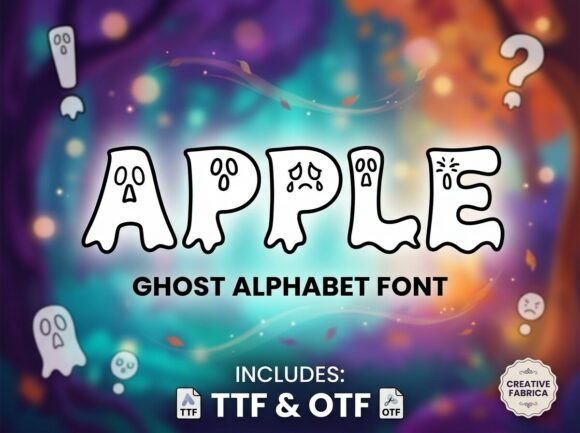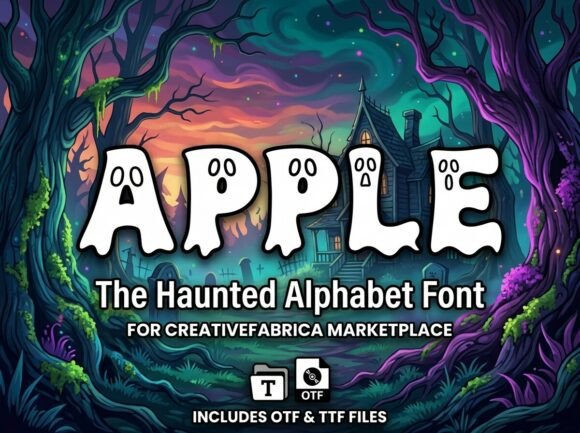
The Apple Font: A Stunning Decorative Display Font to Elevate Your Designs
Have you ever been in the middle of a design project, and suddenly, you’re stuck on finding the perfect font? I recall a recent experience where I was working on a branding project for a luxury client, and I just couldn’t find a font that screamed elegance and sophistication. That’s when I stumbled upon the Apple Font, a game-changing decorative display font that instantly elevated my design.
• ✅ Unique artistic elements that add a touch of personality to any design
• ✅ Strong visual personality that’s perfect for making a statement
• ✅ Versatile enough for bold headlines, artistic logos, and creative packaging
• ✅ Maintains a professional and polished finish
One thing to keep in mind is that the Apple Font is an ALL-CAPS (Uppercase Only) display typeface. This means it doesn’t include lowercase letters, which might be a limitation for some projects. Additionally, the font’s unique design might not be suitable for body text or smaller font sizes.
The Apple Font was designed with the intention of creating a unique and eye-catching display font. The designer aimed to craft a font that would be perfect for headlines, logos, and decorative initials, where every letter is a work of art. The result is a font that’s both elegant and attention-grabbing.
Q: Is the Apple Font suitable for body text?
A: Due to its unique design and ALL-CAPS nature, the Apple Font is not ideal for body text. It’s best used for headlines, titles, and decorative elements.